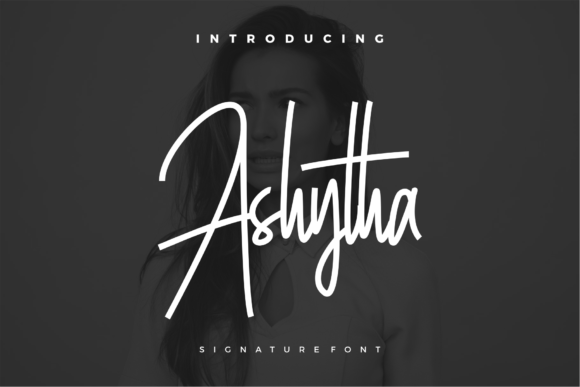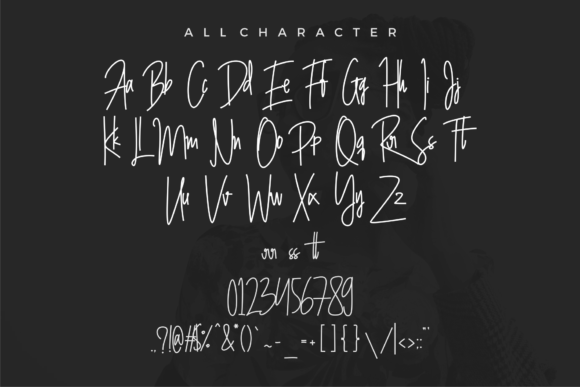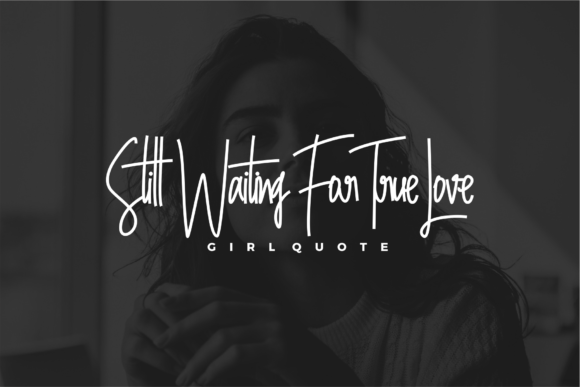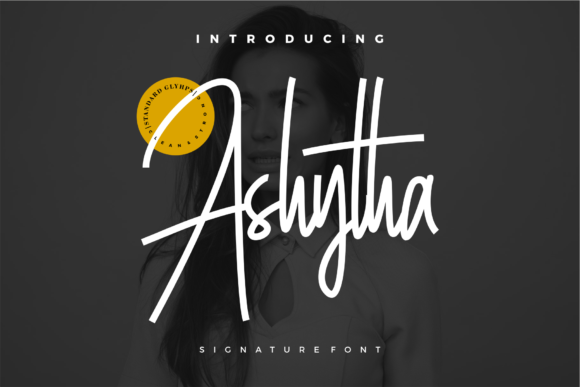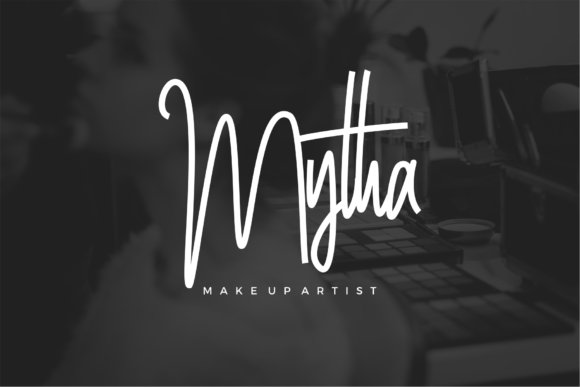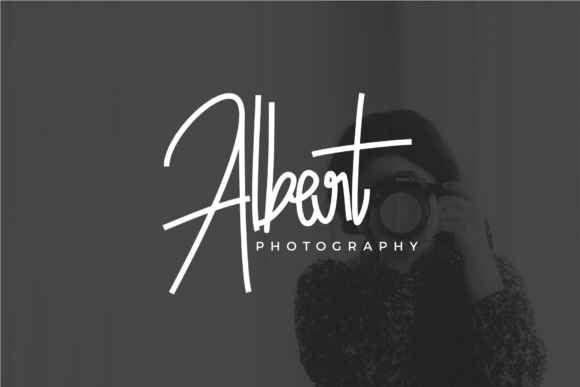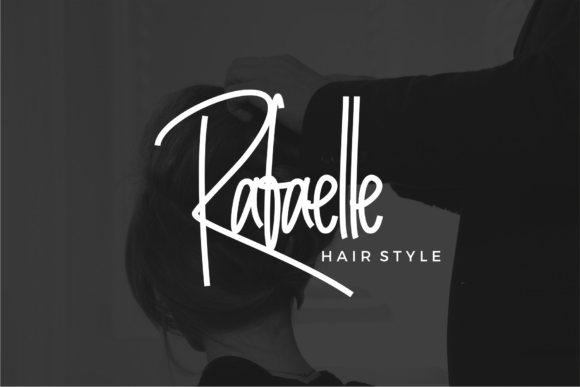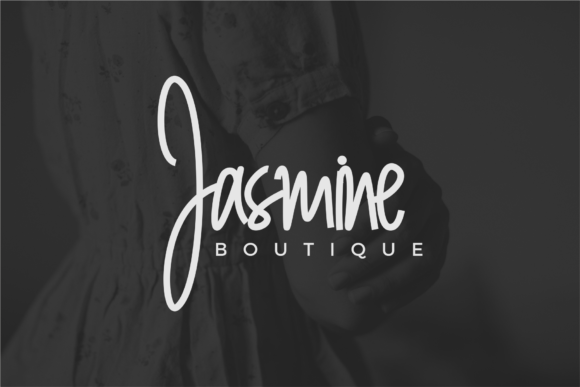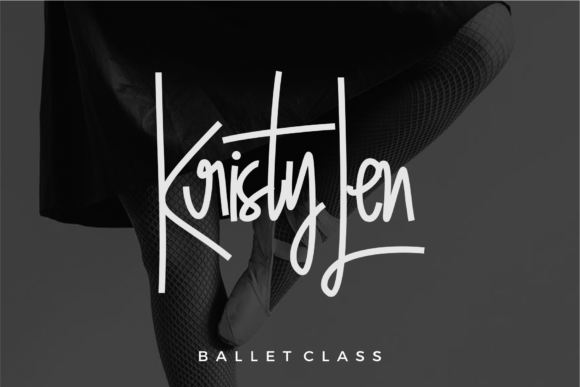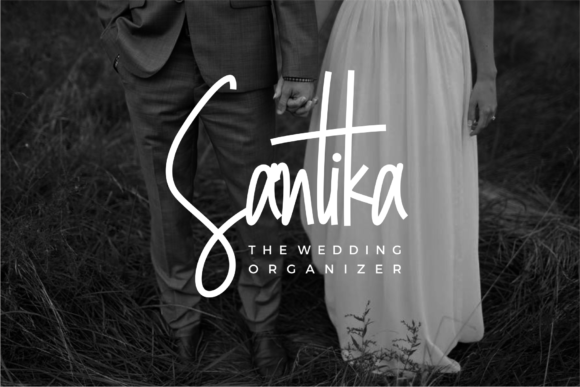
Ashytha Font
About Ashytha Font
Give your designs an authentic handcrafted feel with ‘Ashyta’. It’s perfectly suited for signatures, stationery, logos, typography quotes, magazine or book covers, website headers, and every other design which needs a striking, yet elegant touch.